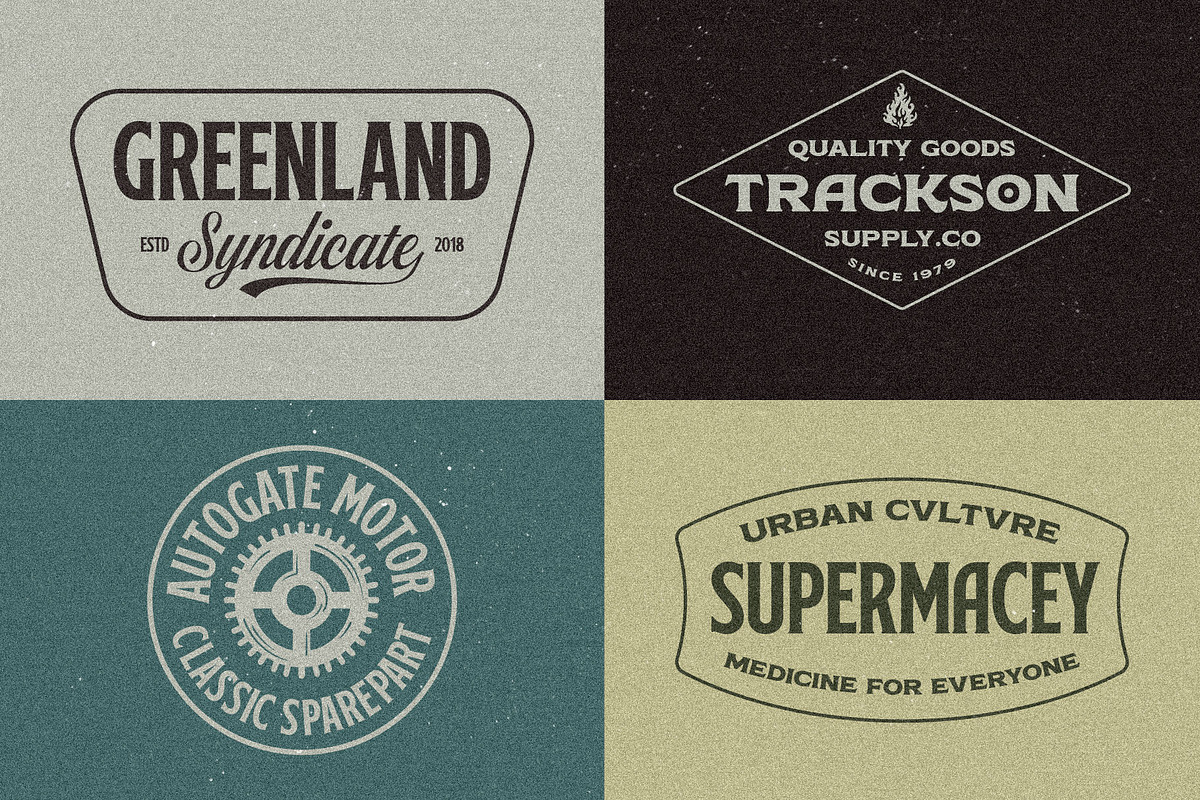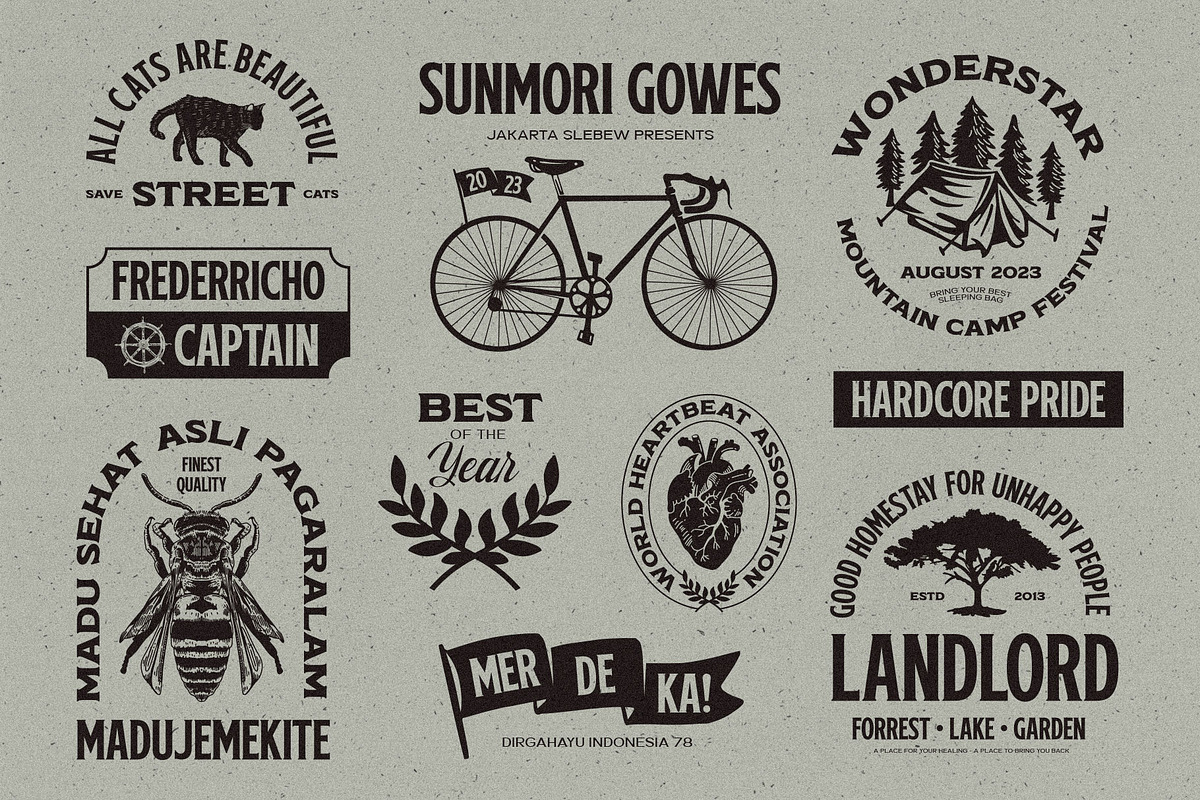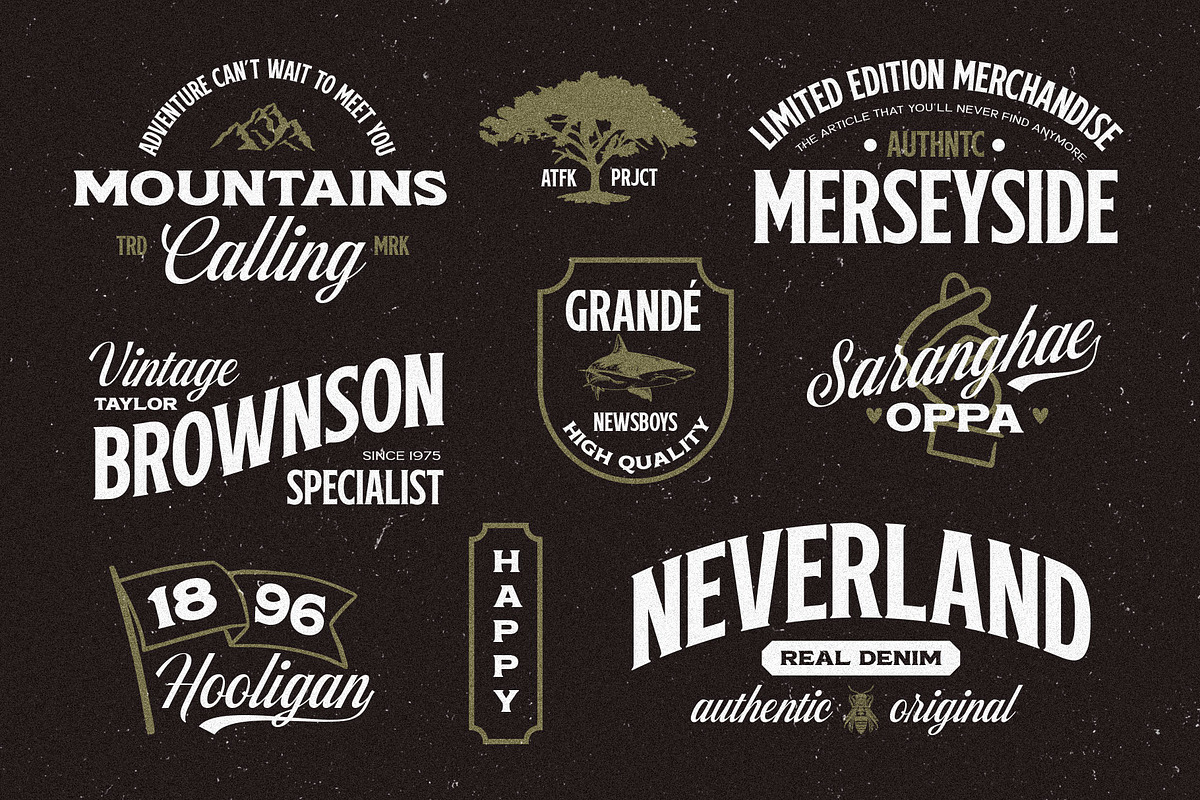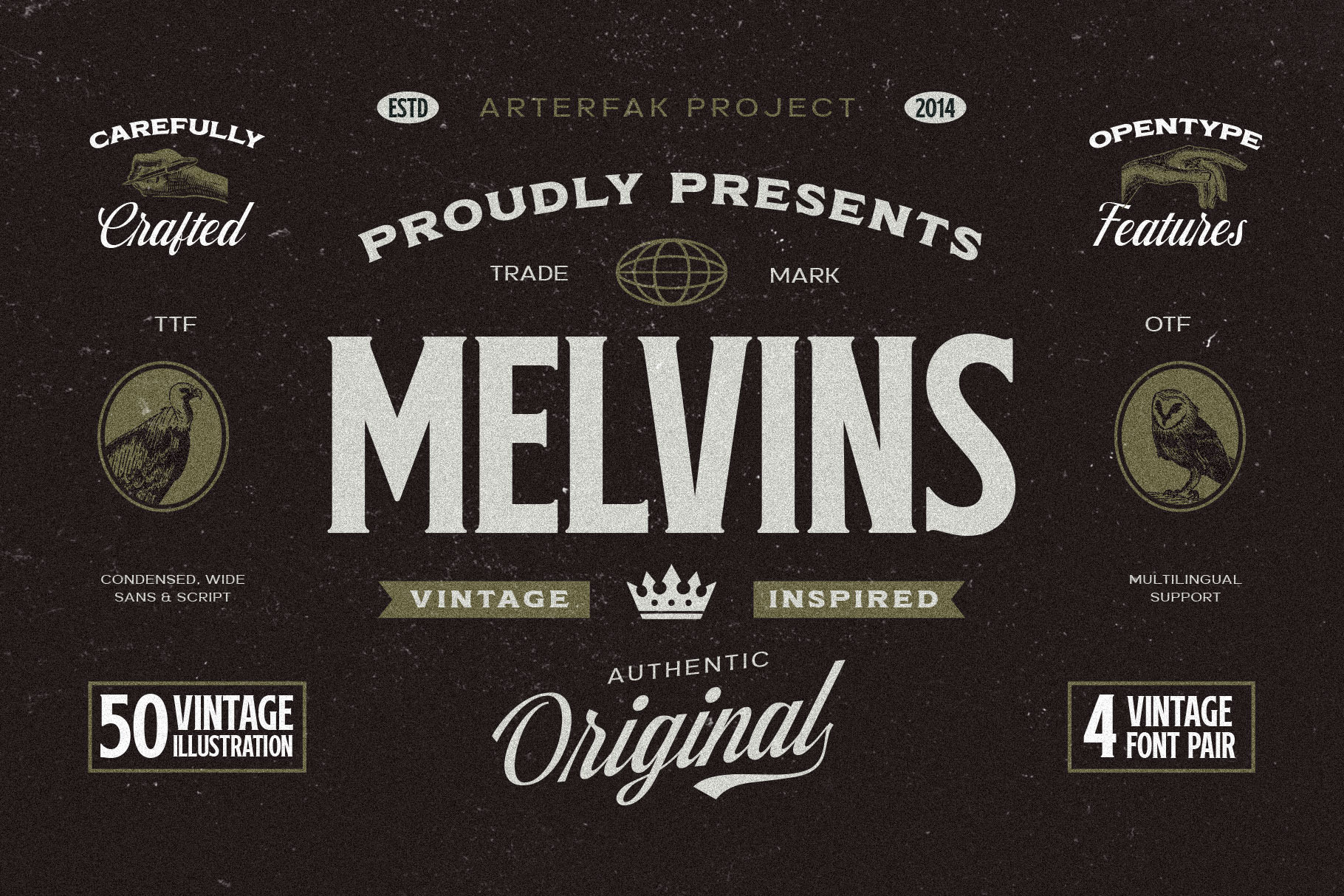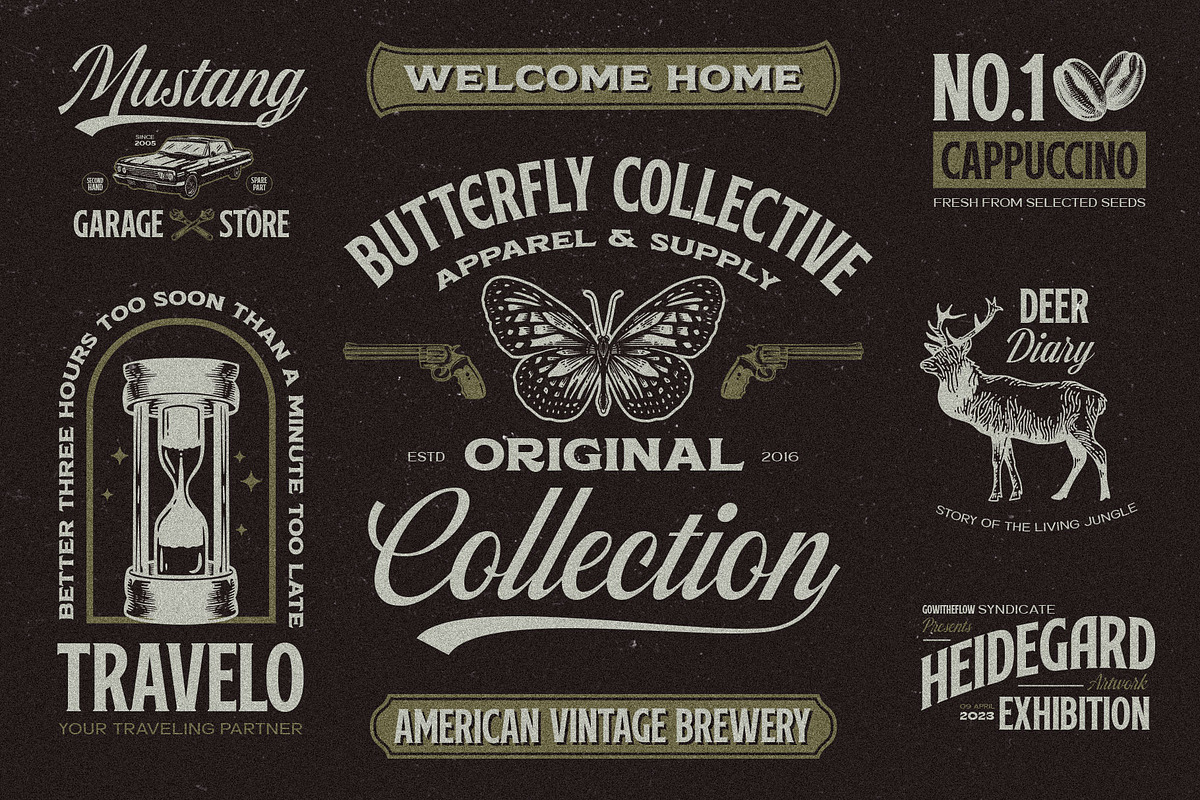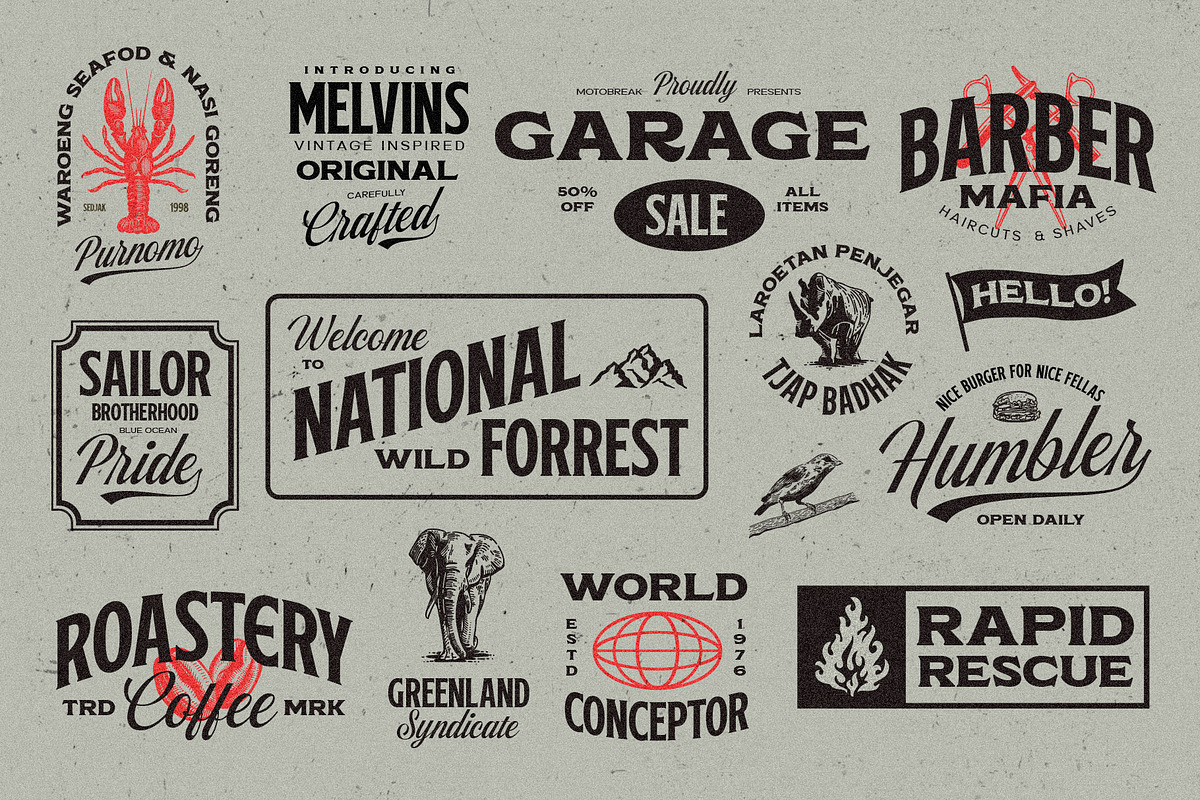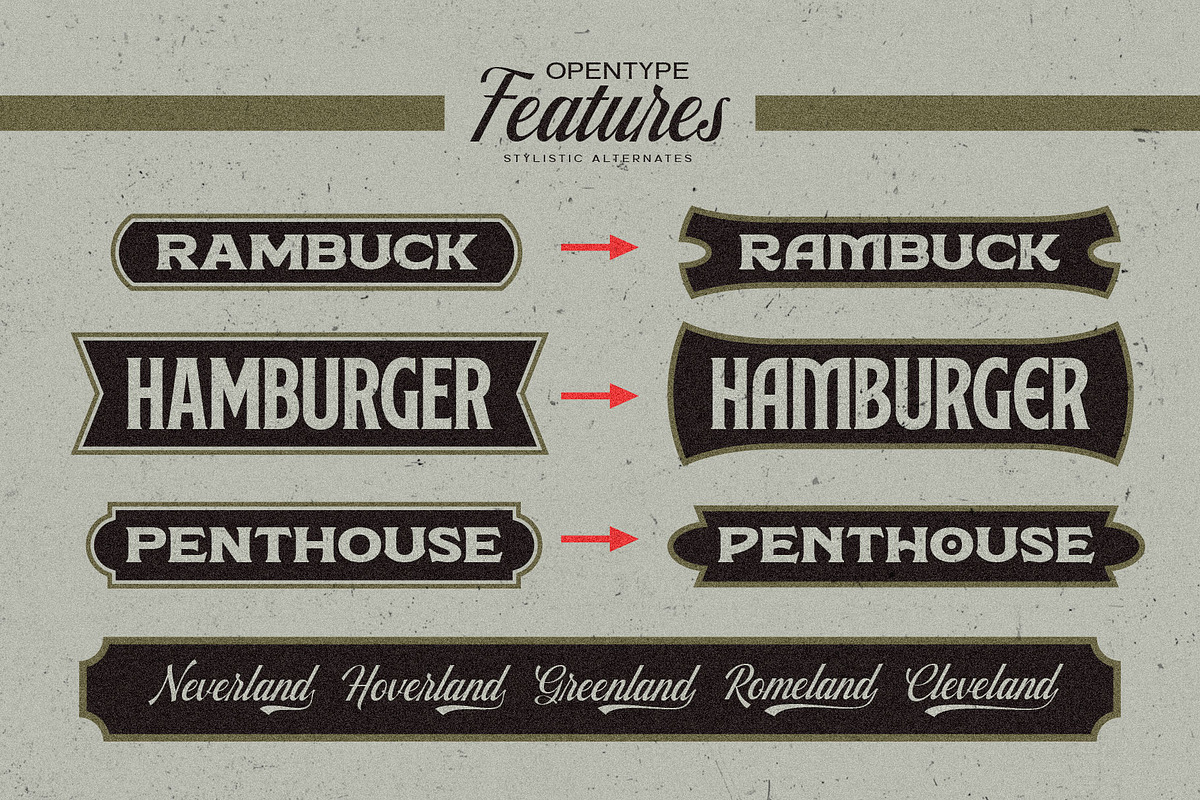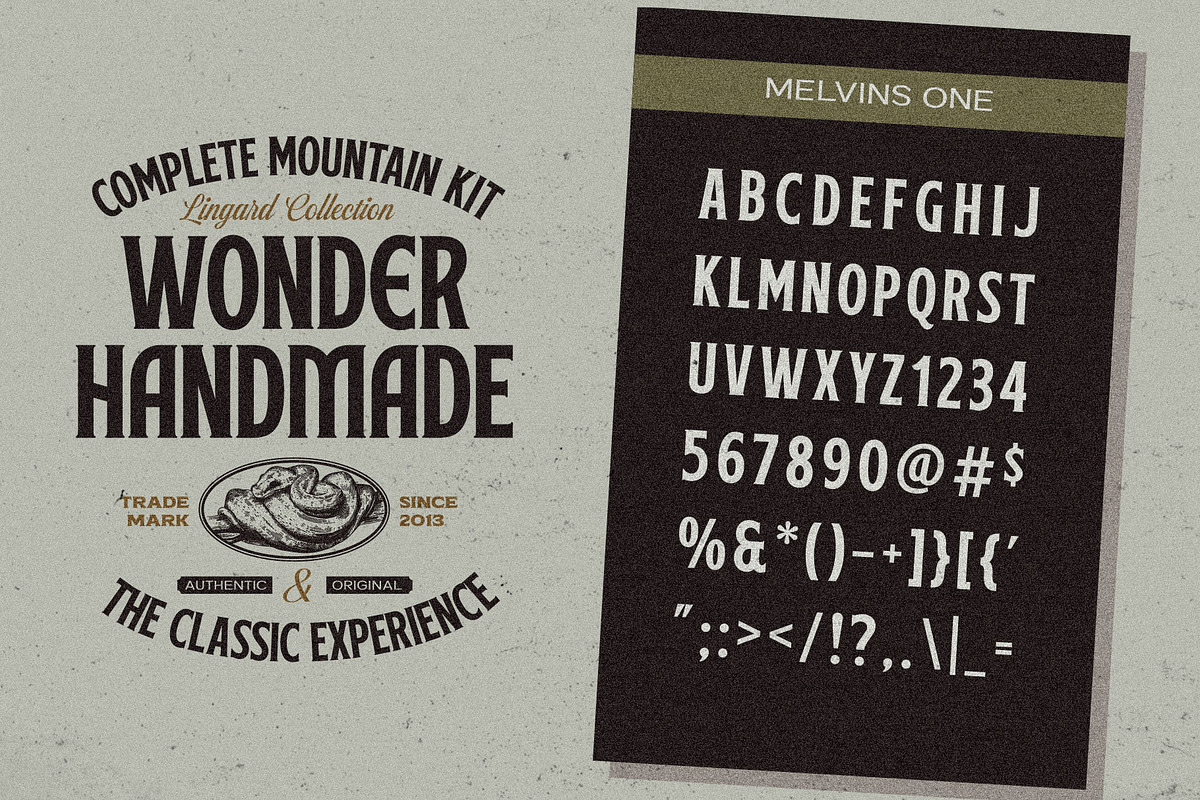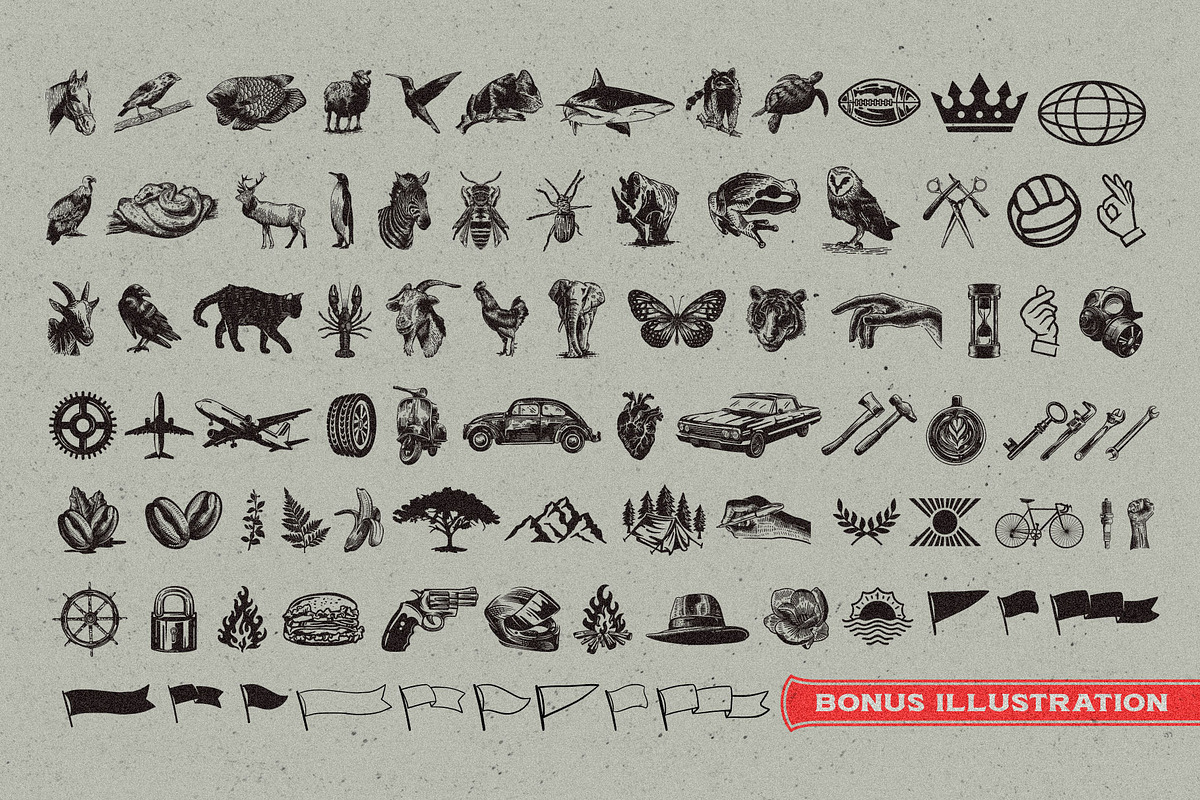
Melvins - Font Set
Introducing Melvins - Font Set. The font combination which inspired by the vintage design. Includes 4 fonts with different styles that have unique looks, and are perfect pairs when combined.
This font set is carefully designed with high attention to give a feel of vintage, old-school, and classic. Melvins consist of Condensed, Light, Expanded, & Script styles that are versatile to be used for many design purposes.
Melvins Font Set including with 50+ vintage illustrations that will ease you to make a design in a sec and is also equipped with swash and alternate characters that you can mix and match to get a more vintage look. The perfect choice to be used to create logo, label, badges, logotypes, decals, shirts, posters, flyers, and etc.'
- Melvins - One
- Melvins - Two
- Melvins - Three
- Melvins - Four
Fonts featured :
- All capitals character set
- Lowercase (script)
- Symbols & punctuation
- Swashes (script)